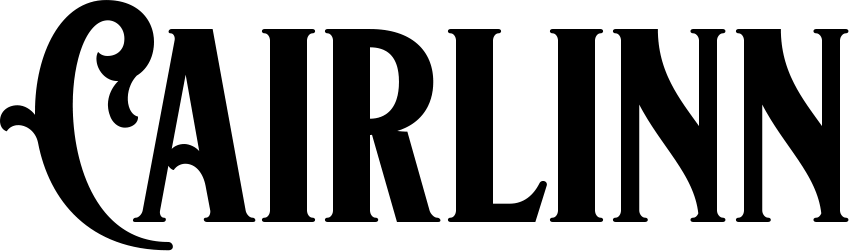
Cairlinn Font
Who says that it always has to be modern and with it to be appealing? Cairlinn coming from the retro font family is a good example to rule that assumption out!
With Cairlinn, you can revive the old-time feels and give a unique look to your branding, advertising campaign, product packaging, etc., writing them in bold and retro Cairlinn. It’s worth noting that the lowercase letters in this biker tattoo font come with curly tops and tails to give an elegant look to the font!
Let us introduce our first font on 2019; Cairlinn. A clean serif that are forged with spirit of vintage typography. Heavily inspired by the old letters that are used in classic advertisements.